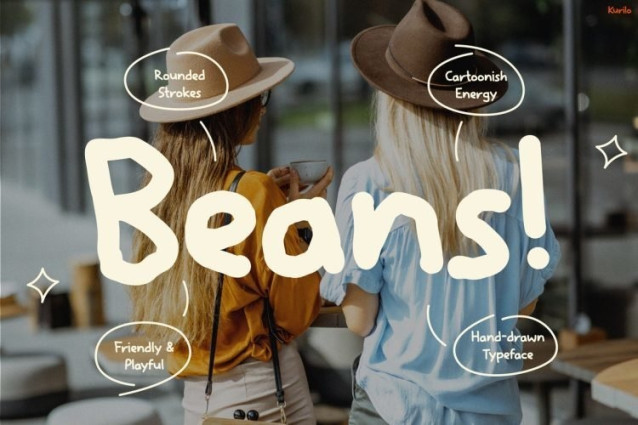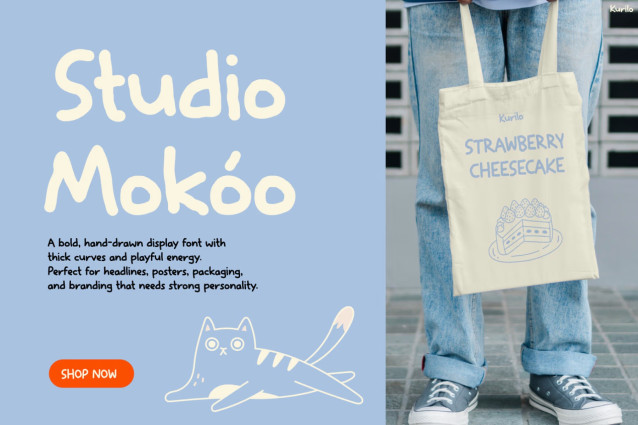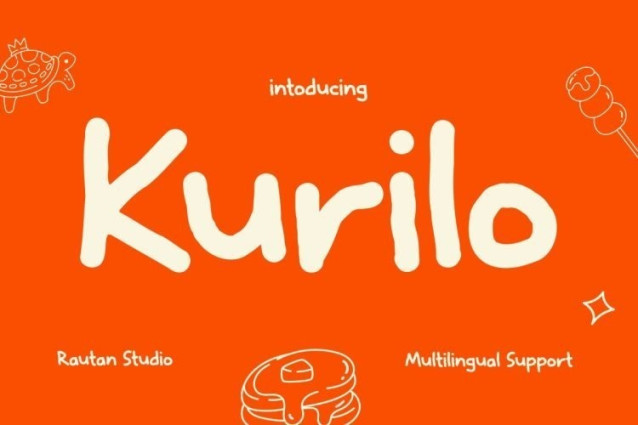
Kurilo Font
Kurilo Font is a bold, hand-drawn display font with soft, rounded curves and a cheerful, cartoonish energy. Its thick strokes and slightly irregular, organic shapes give it a warm, handmade personality that feels friendly and approachable.
Use it for children’s book covers, toy packaging, casual café menus, bakery branding, apparel design, and playful social media graphics. It is best suited for headlines, posters, and merchandise where its chunky, high-energy letterforms can take center stage.